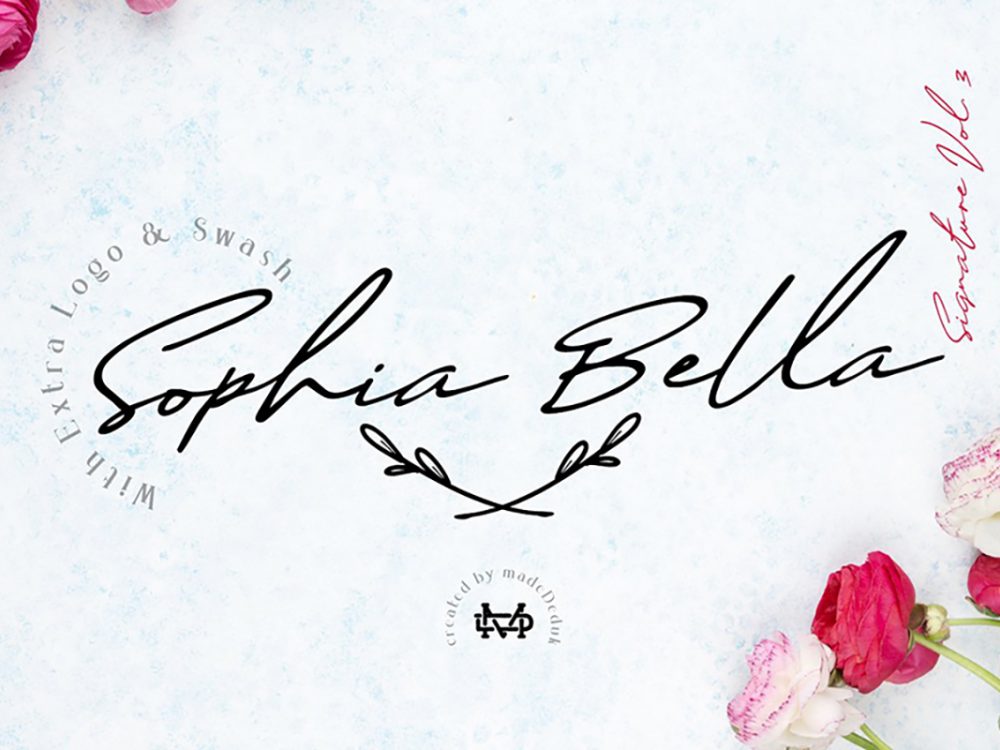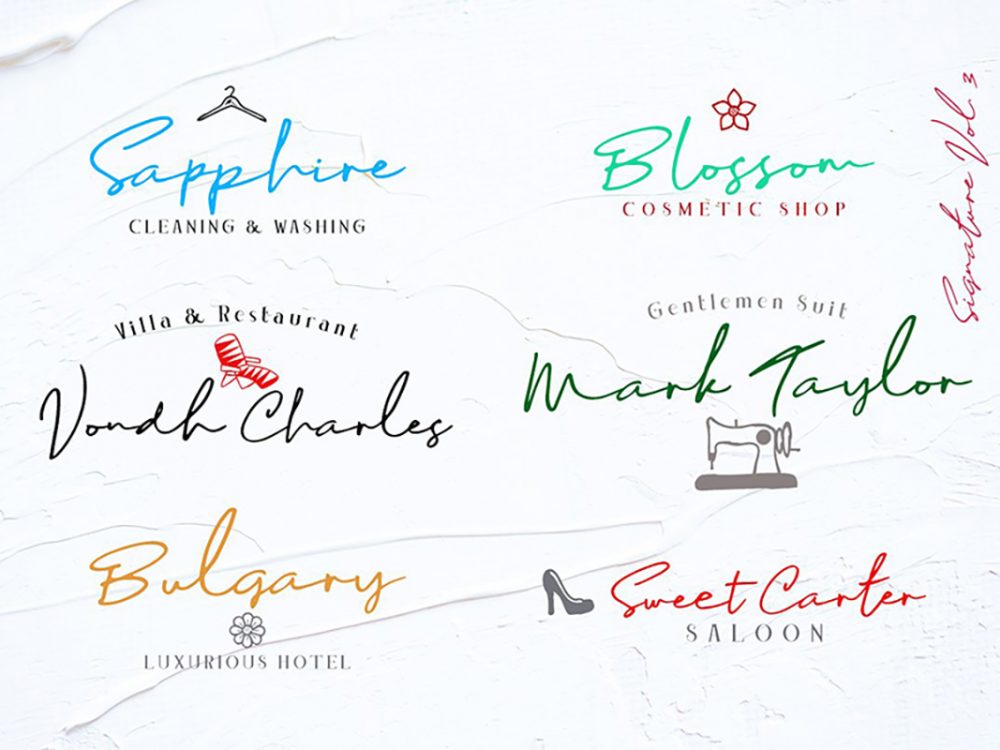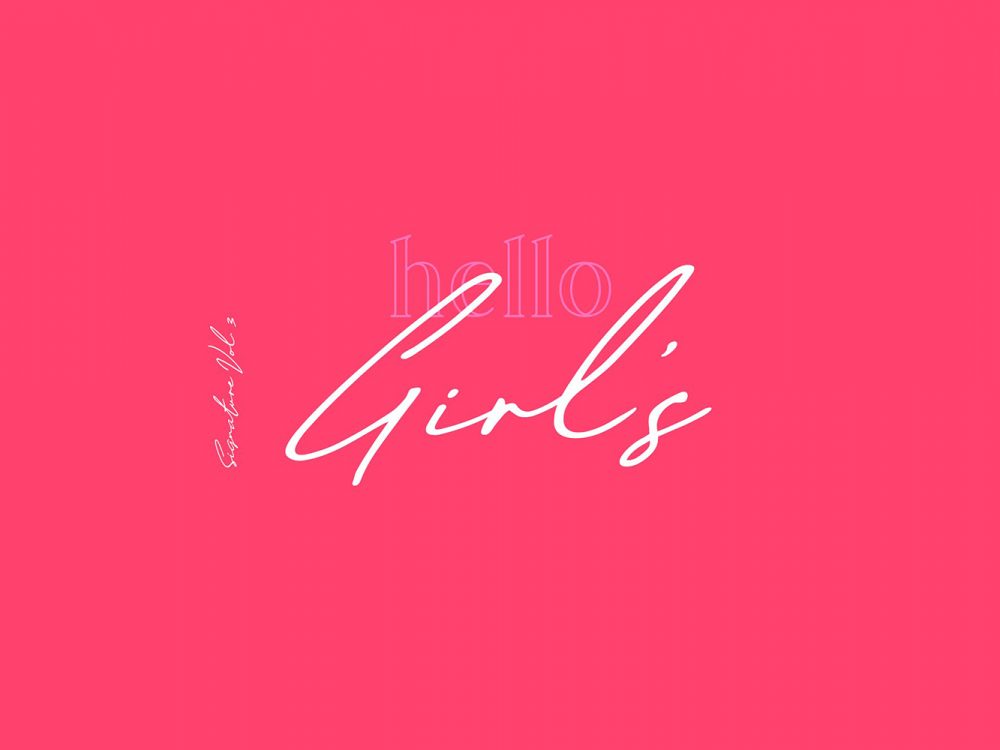
Sophia Bella Signature Font
Sophia Bella Signature Font is an interesting modern handwritten typeface that is elegant and simple in style. This font is very suitable for a variety of design projects that require a handwritten font. Use this font to create posters, wedding invitations, cards, branding, flyers, prints, and more. If you wish to access more features and use them for commercial work please buy the full version.